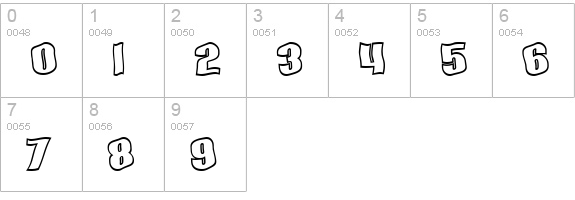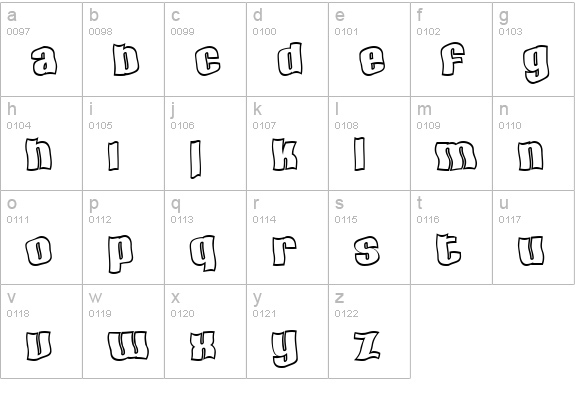
SF Hallucination Outline Font Details
SF Hallucination Outline font is a captivating and visually stunning typeface that will transport you to a realm of imagination and wonder. Its intricate and meticulously crafted outline design evokes a sense of otherworldly beauty, making it perfect for adding a touch of fantasy to your creative projects. With its unique and mesmerizing curves, SF Hallucination Outline font is sure to catch the eye and leave a lasting impression. Whether used in headlines, logos, or any other design application, this font will effortlessly elevate your work to new heights, making it stand out from the crowd. What sets SF Hallucination Outline font apart is not only its exceptional aesthetic appeal but also its versatility. It can effortlessly adapt to any theme or style, be it futuristic, mystical, or even retro. Its clean lines and well-defined edges make it incredibly legible while maintaining an air of enchantment. One of the best things about SF Hallucination Outline font is that it is available for free! Yes, you read that right. This captivating font can be freely downloaded from FontsMarket.com, allowing you to unleash your creativity without any financial constraints. Whether you are a professional designer, a student, or an enthusiast, this font is a valuable addition to your typographic repertoire. So, why wait? Dive into the world of SF Hallucination Outline font and let your imagination run wild. Download this captivating font today at FontsMarket.com and embark on a journey of endless creativity. With SF Hallucination Outline font, your designs will truly come to life, captivating and inspiring all who lay eyes on them.